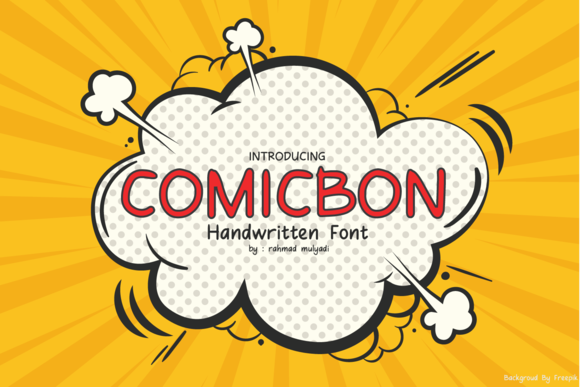
Unleash the irresistible allure of Comicbon, a captivating script font that dances across your designs with effortless grace. Its vibrant energy and playful spirit make it the perfect choice to ignite your branding, packaging, and invitations with a burst of personality.
Step into the world of Comicbon, where every stroke evokes a sense of authenticity and warmth. This meticulously crafted font mimics the natural flow of handwriting, capturing the essence of human connection. Whether you're designing a heartfelt quote, an eye-catching t-shirt graphic, or a memorable logo, Comicbon will lend an air of charm and sophistication to your creations.
As a leading graphic designer, I can attest to the transformative power of Comicbon. Its versatility knows no bounds, seamlessly adapting to a myriad of design projects. From charming product packaging that draws customers in to captivating posters that command attention, Comicbon has the versatility to elevate your designs to new heights.
Beyond its undeniable aesthetic appeal, Comicbon is a font that speaks to the heart. Its playful curves and spontaneous strokes evoke a sense of nostalgia and childlike wonder. Whether you're creating a whimsical invitation for a special occasion or a playful label for your handmade products, Comicbon will infuse your designs with a touch of magic.
Join the countless designers who have embraced the charm of Comicbon and witnessed its ability to transform ordinary designs into extraordinary works of art. Its intuitive nature and effortless flow make it the perfect choice for both seasoned professionals and aspiring designers alike.
Don't let the opportunity to harness the power of Comicbon pass you by. Its unique combination of elegance, playfulness, and versatility will empower you to create designs that captivate, inspire, and leave a lasting impression on your audience.